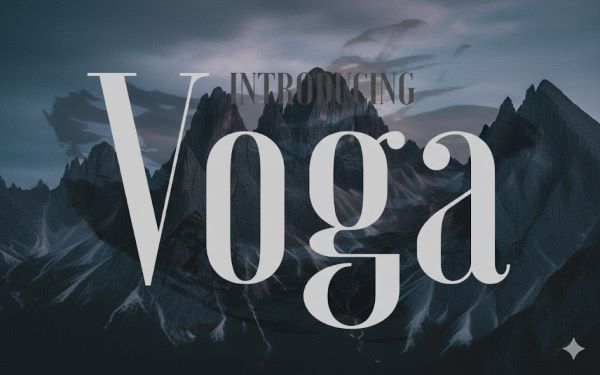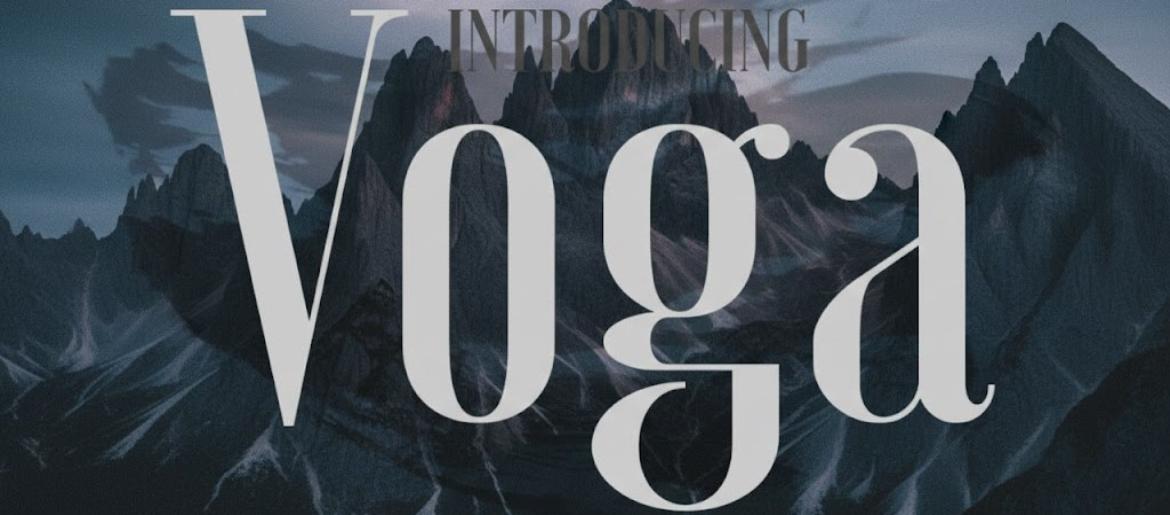
Voga Font
Voga Font is a modern serif typeface created by Charles Daoud, featuring a condensed Didone style available in Regular, Medium, and Bold weights. Inspired by classic Bodoni and Didot influences, it offers elegant contrast and refined structure. With extensive multilingual support across the Americas and Europe, it stands out as a sophisticated choice among stylish and versatile free fonts.